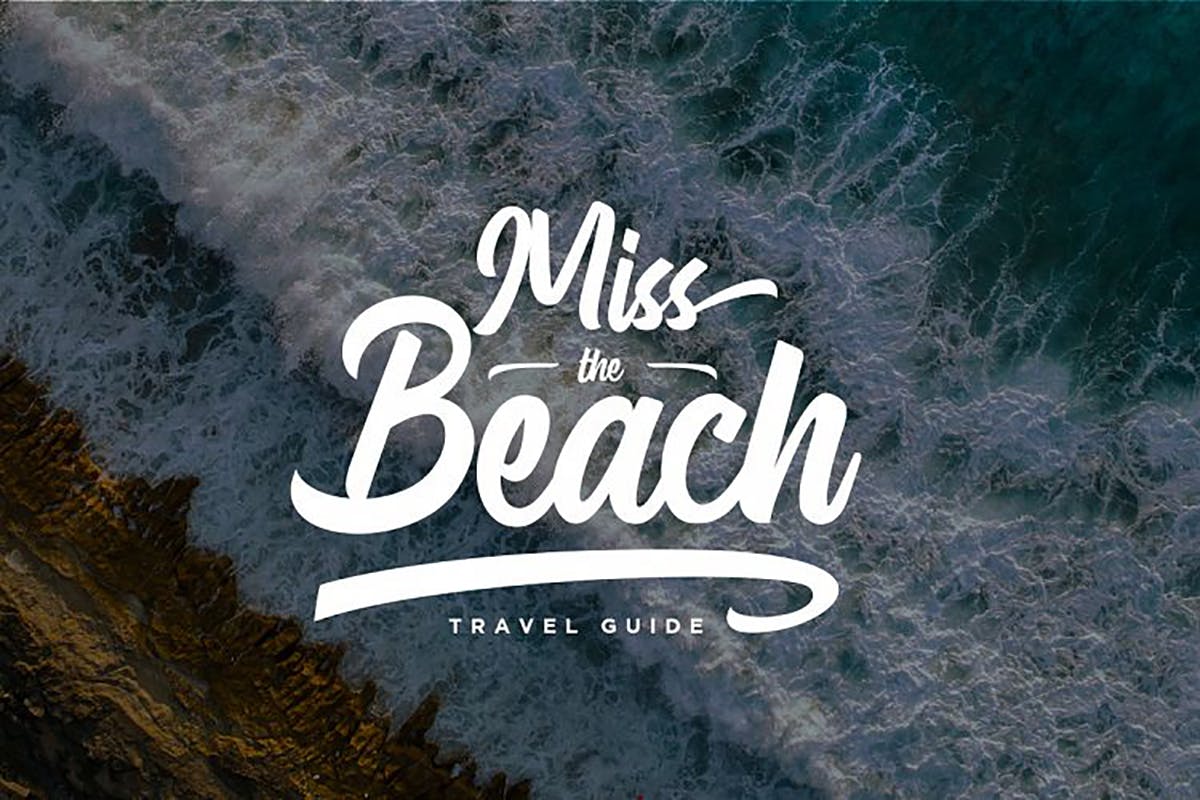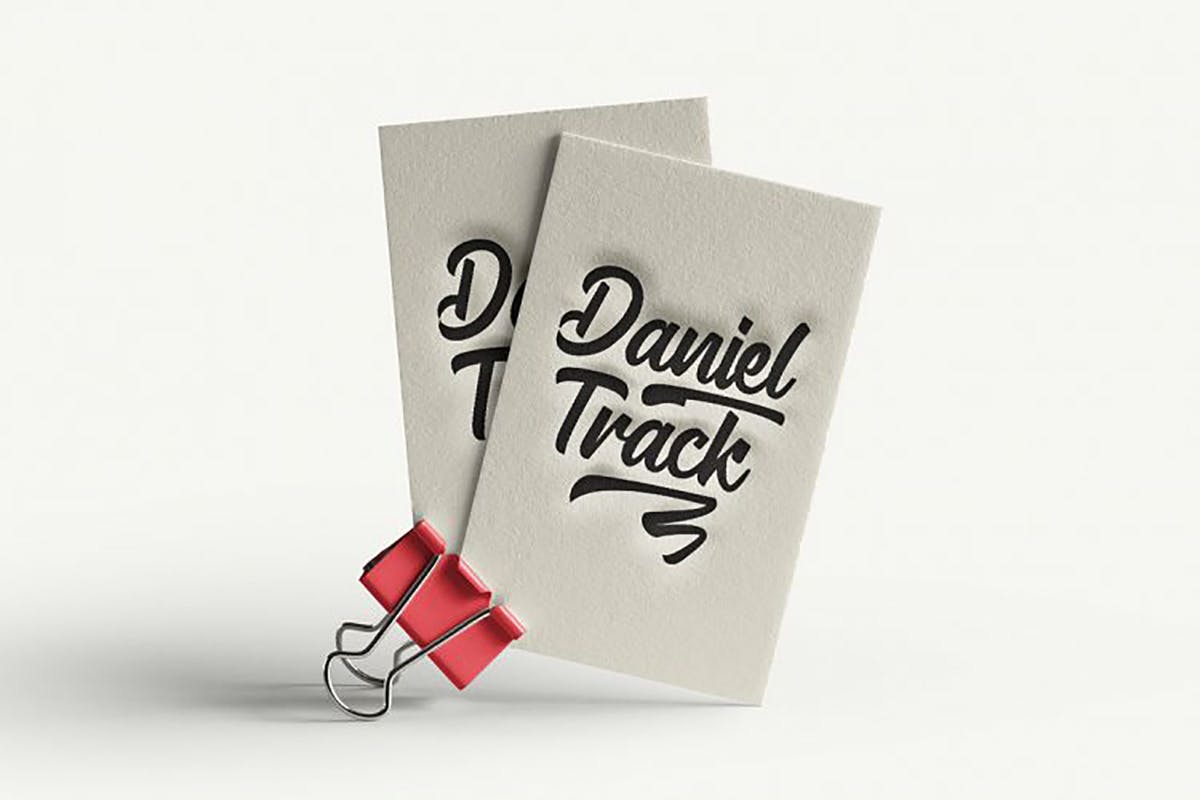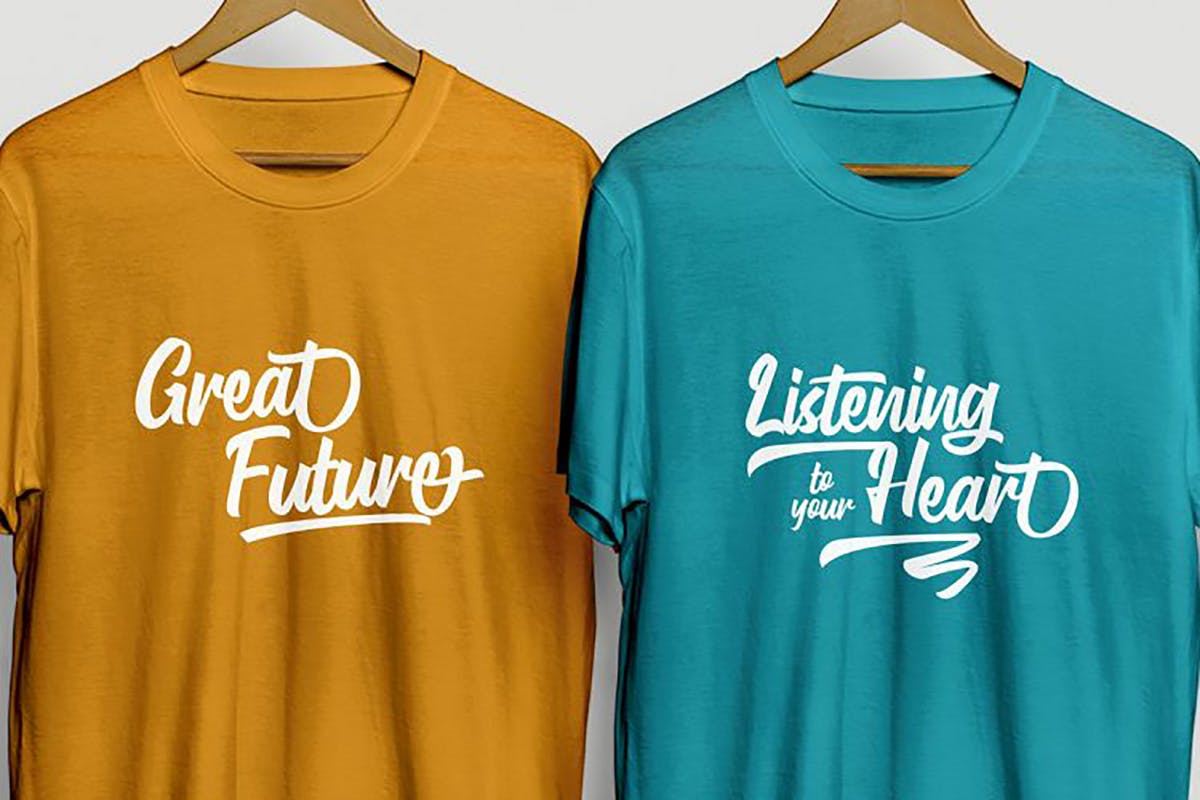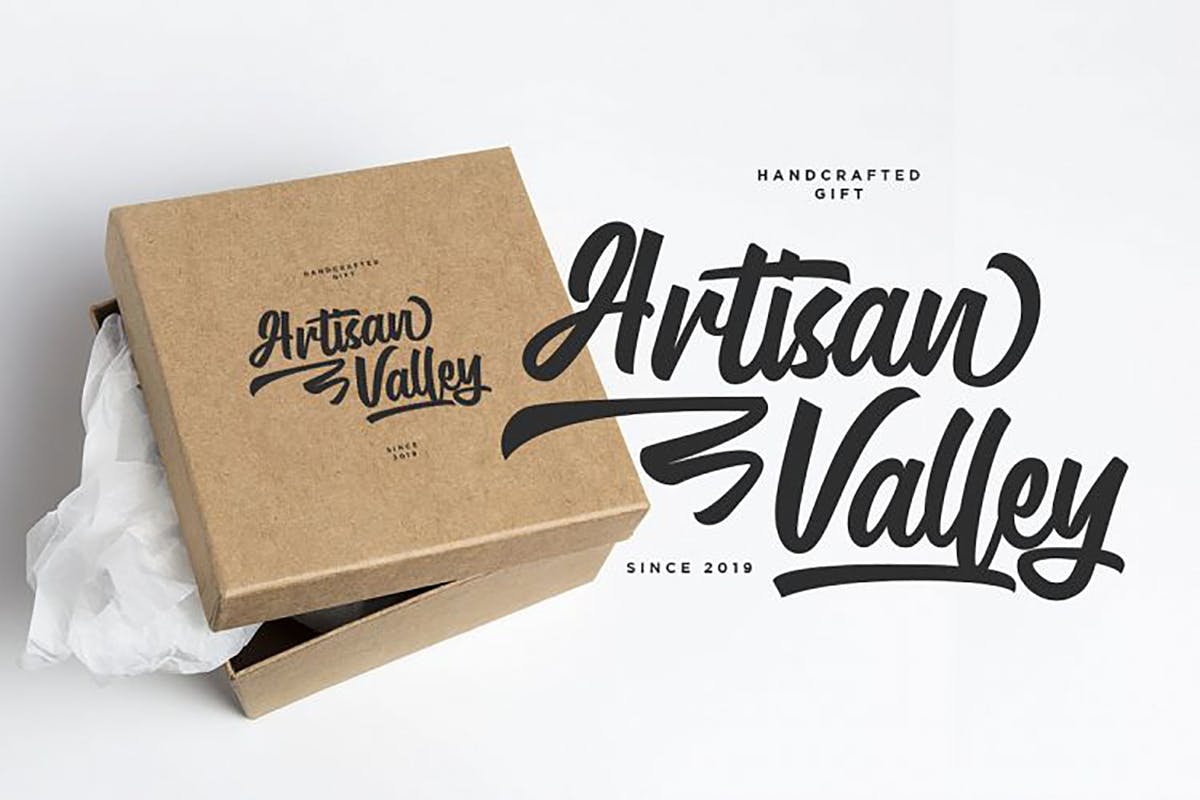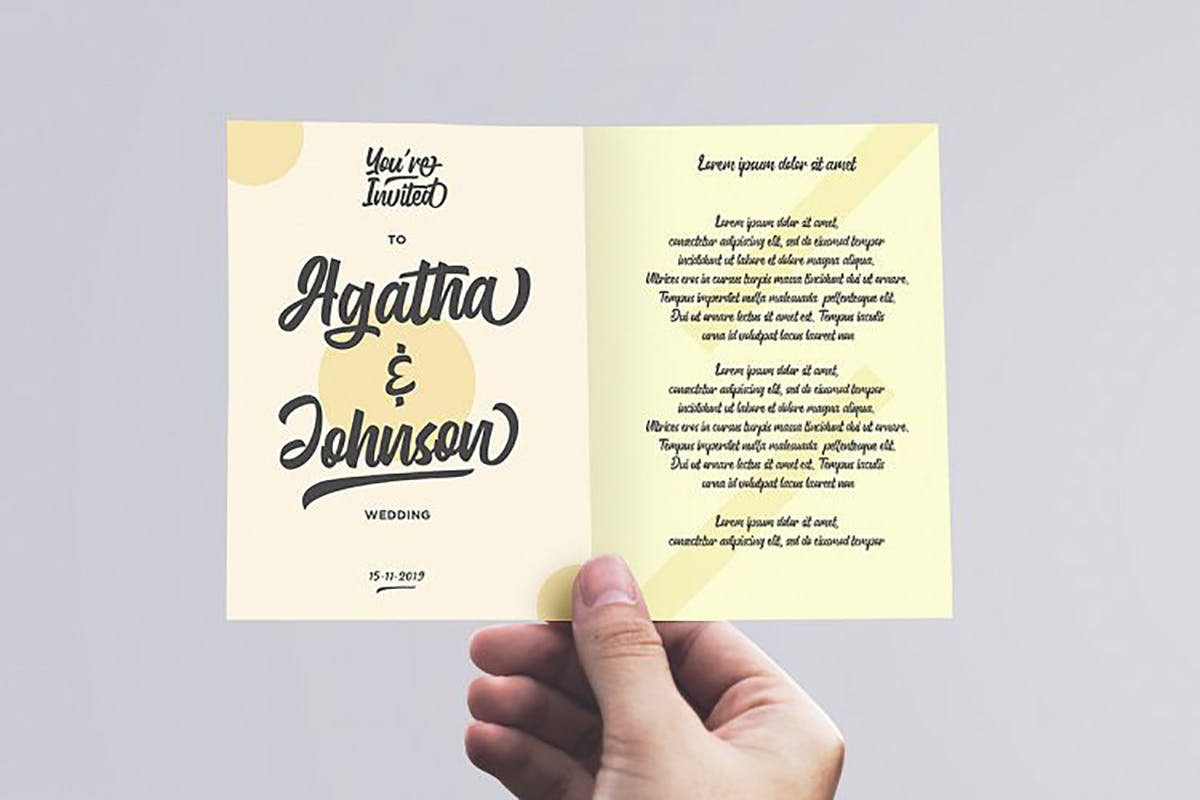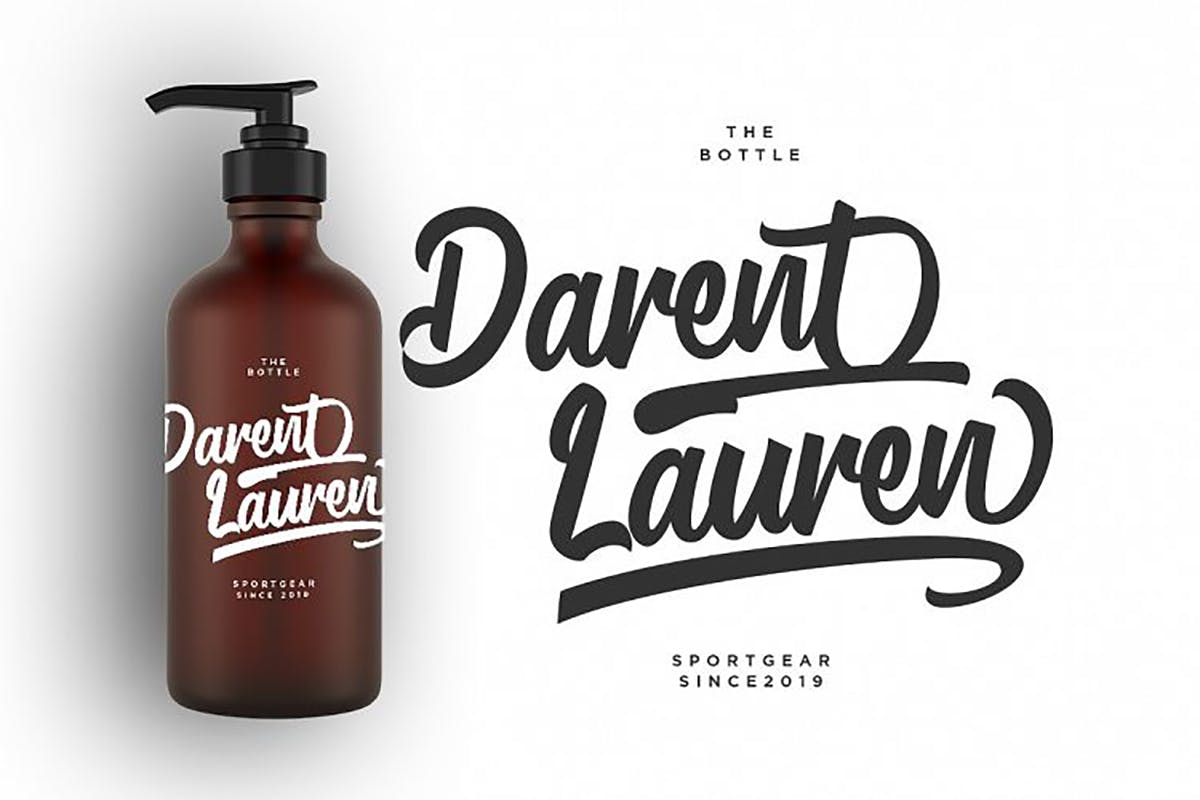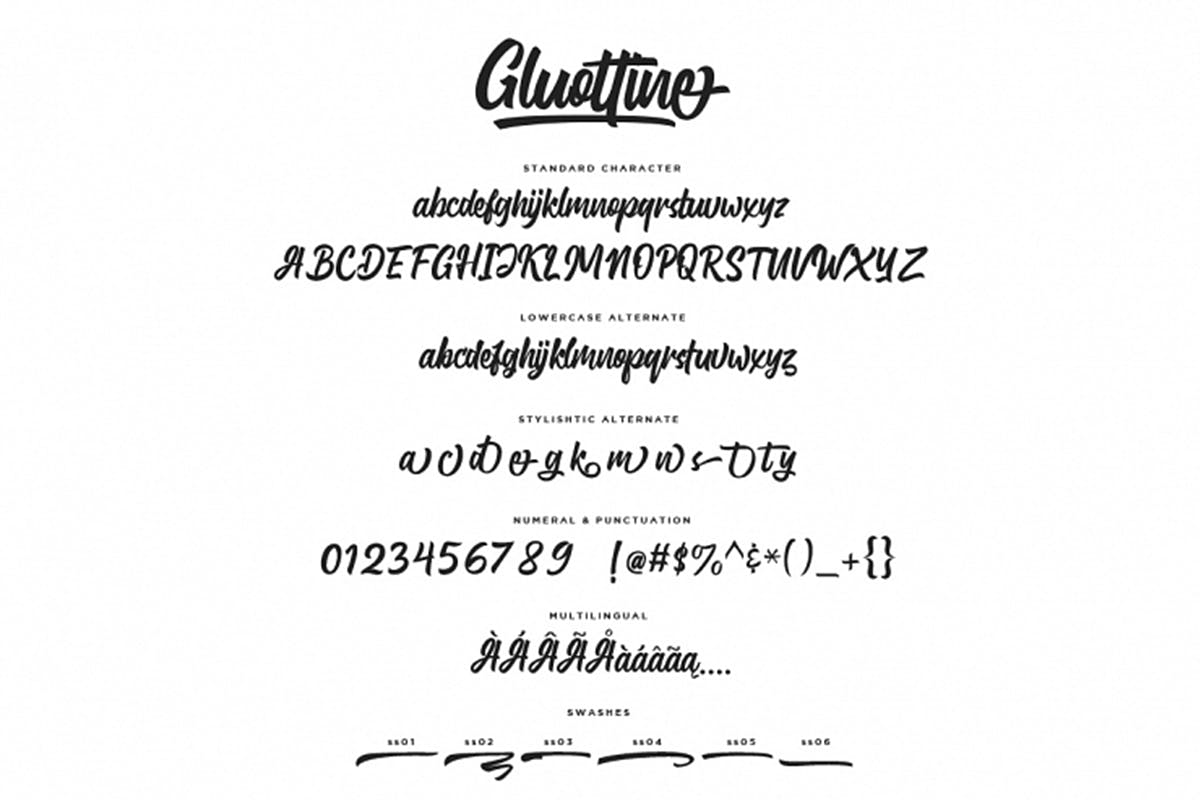
Free Gluottine Modern Calligraphy Font
Today, we have a new freebie from EmbunStudio. It is Free Gluottine Modern Calligraphy Font, this font is awesome with calligraphy styles. Also, It has some variation glyph styles that you can use on your project such as a wedding invitation, business card, logo, branding and more. However, this free font is a demo version with a personal license, hence you cannot use it on commercial projects.